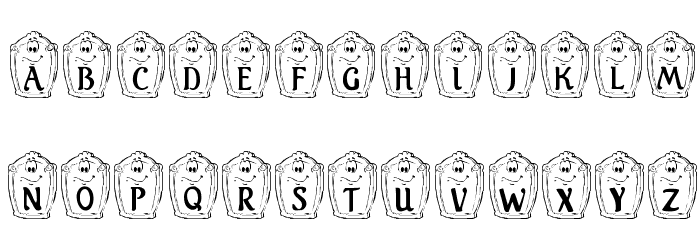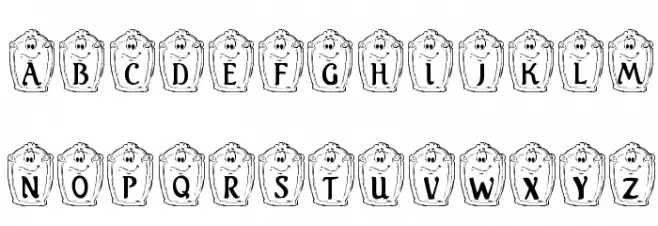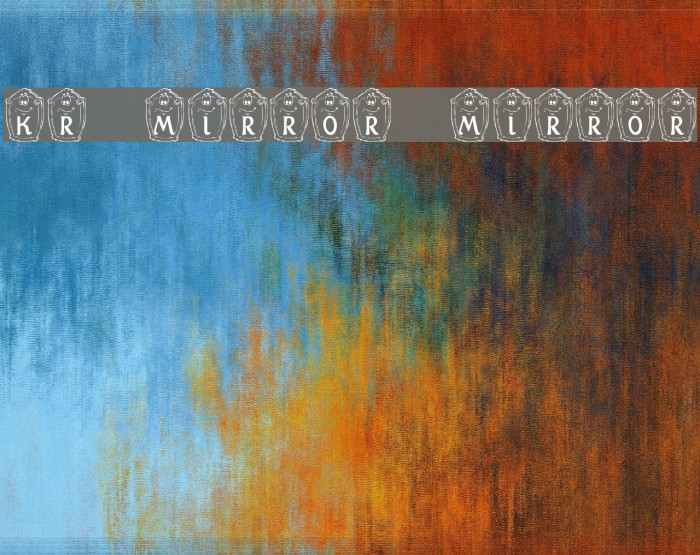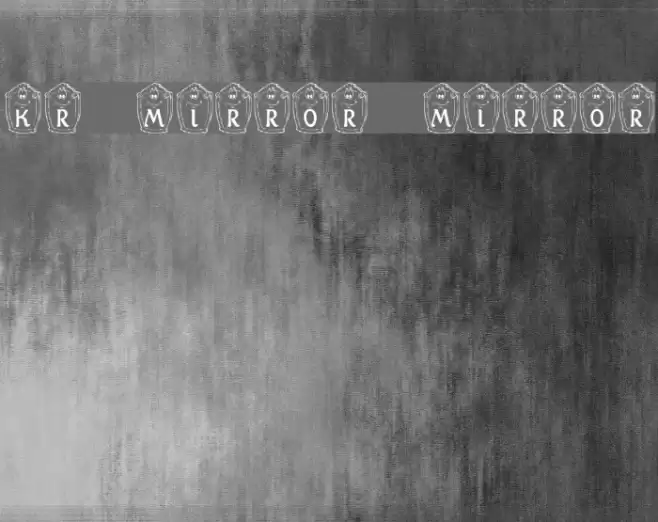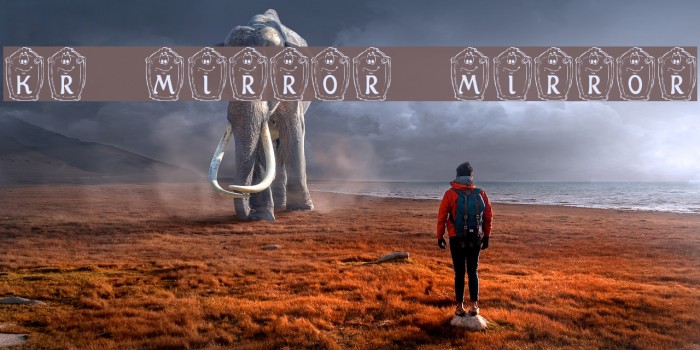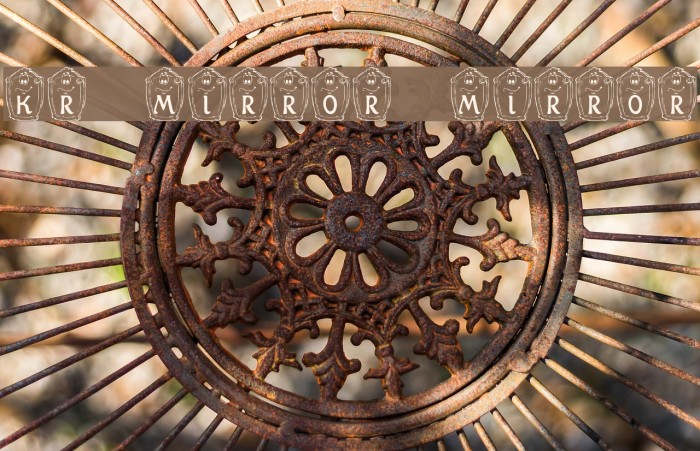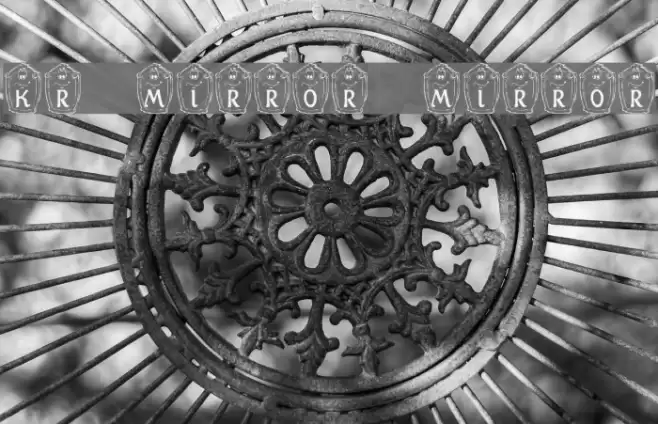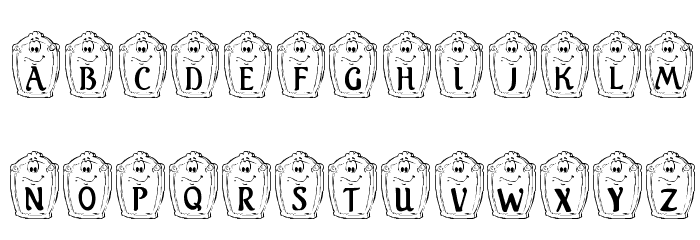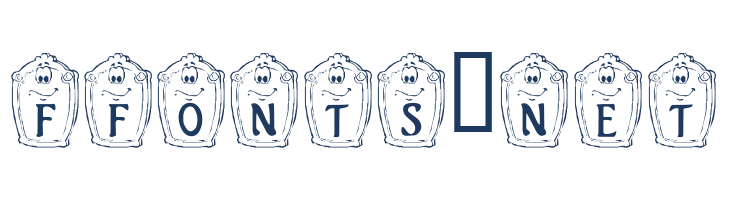
KR Mirror Mirror Font
KR Mirror Mirror Description
This decorative font features each character enclosed within a stylized mirror frame, giving it a whimsical and fairy-tale-like appearance. The letters are bold and slightly elongated, with a playful yet elegant style that captures attention. The mirror motif adds a unique and thematic element, making it ideal for projects that require a touch of fantasy or magic. The font maintains consistent spacing and alignment, ensuring readability while preserving its decorative charm.
| Use Case | Headlines, Logos, Decorative text |
| Proposed Projects | Ideal for fantasy-themed invitations, children's book covers, magical event posters, and decorative signage. |